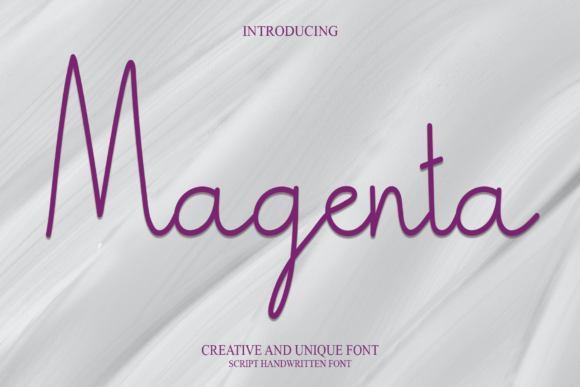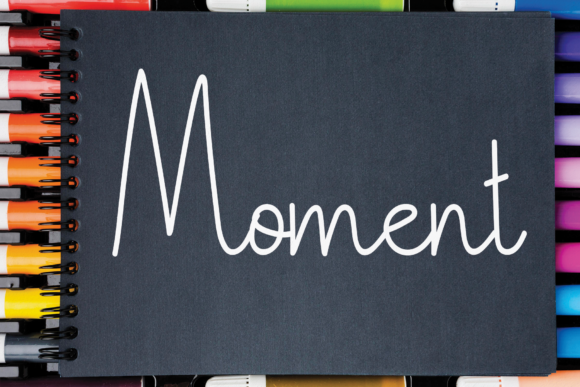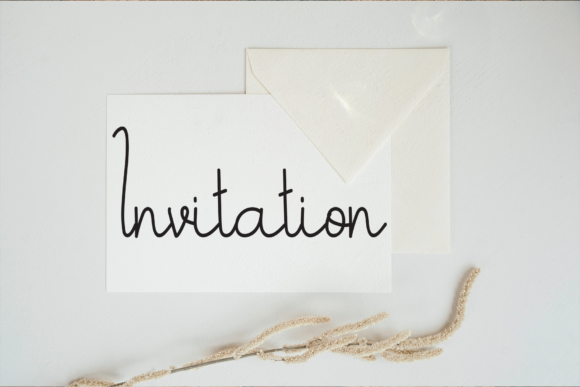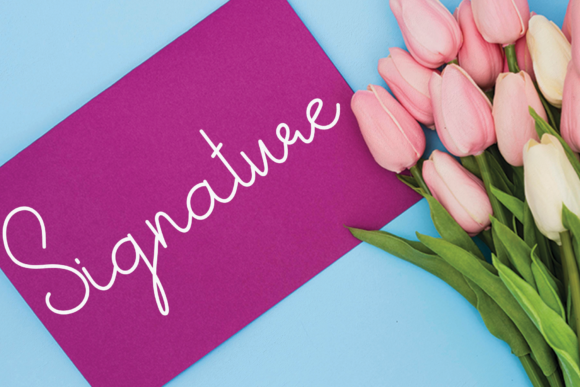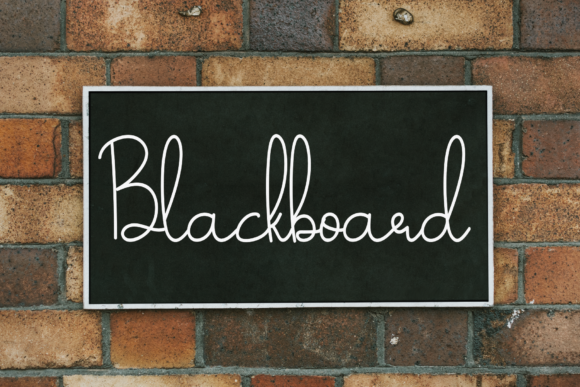
Magenta Font
About Magenta Font
Magenta font epitomizes elegance with its graceful script font, coupled with a contemporary touch and impeccable form. Striking a harmonious balance between thinness and boldness, this font offers a varied and well-rounded appearance, meticulously crafted to elevate the beauty of your projects with its versatility and refined aesthetic.
Crafted with precision and attention to detail, Magenta font exudes modernity and sophistication through its fluid letterforms and balanced strokes. Its contemporary feel infuses a fresh and stylish vibe into every design, while its flawless form ensures readability and visual allure across a wide range of applications.
Versatility is a hallmark of Magenta font, making it suitable for diverse design projects. Whether employed for branding, advertising, invitations, or packaging, this font adds a touch of elegance and professionalism to each application.
The moderate weight of Magenta font strikes the perfect balance, ensuring adaptability and versatility across different design styles and aesthetics. Its well-balanced approach imbues your projects with depth and character without overshadowing them.
Whether used for digital or print media, Magenta font enhances the allure of your creations with its elegant script style. Its refined appearance brings a sense of sophistication and charm to logos, headlines, and promotional materials, allowing your brand to make a memorable impact with timeless elegance.
In summary, Magenta font epitomizes contemporary chic and timeless elegance. With its flawless form, balanced weight, and varied design elements, it enriches the visual appeal of any project, leaving a lasting impression on viewers and enhancing the beauty of your designs with effortless sophistication.